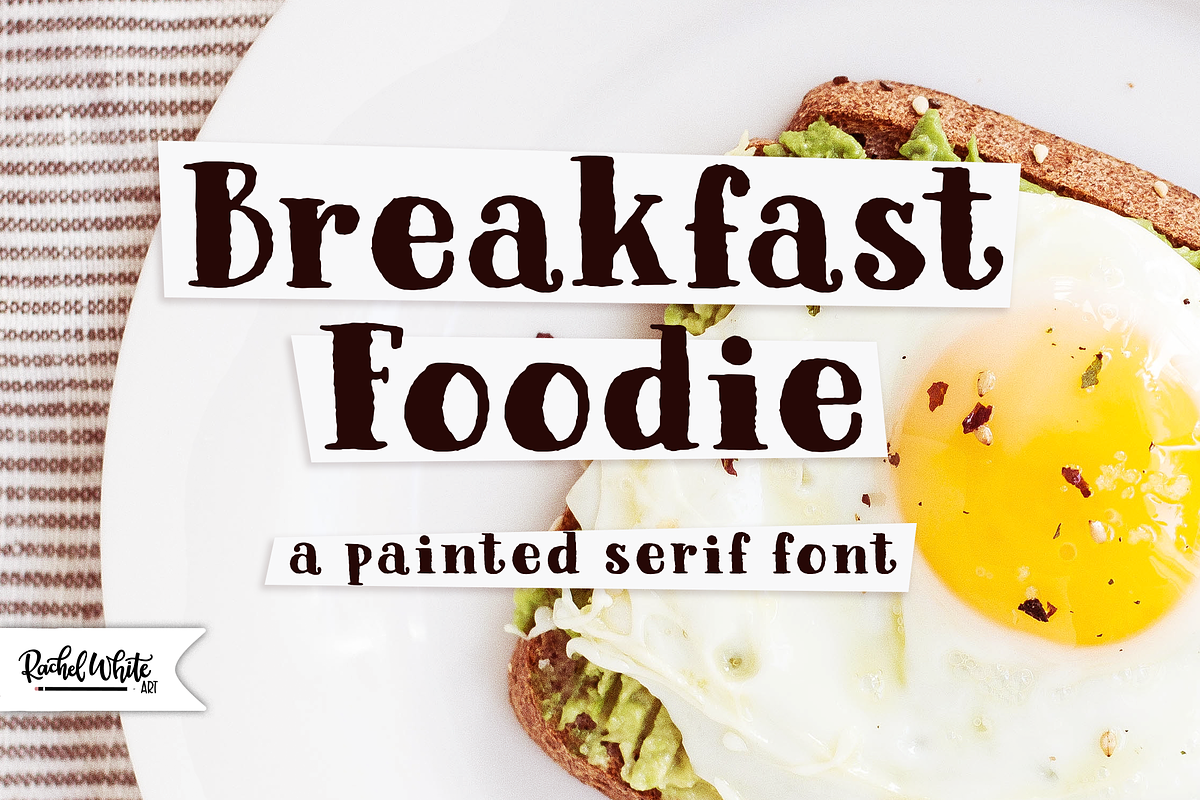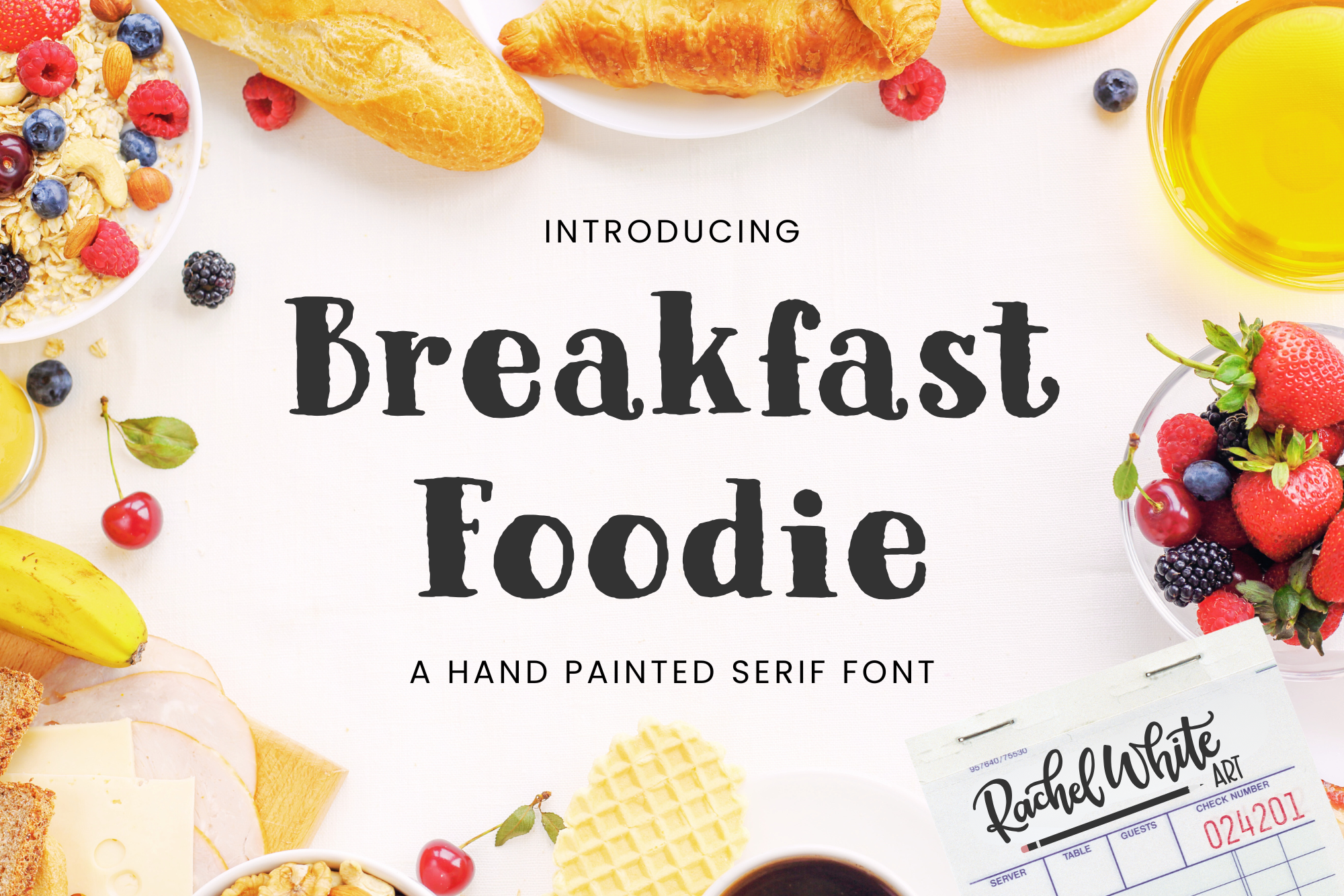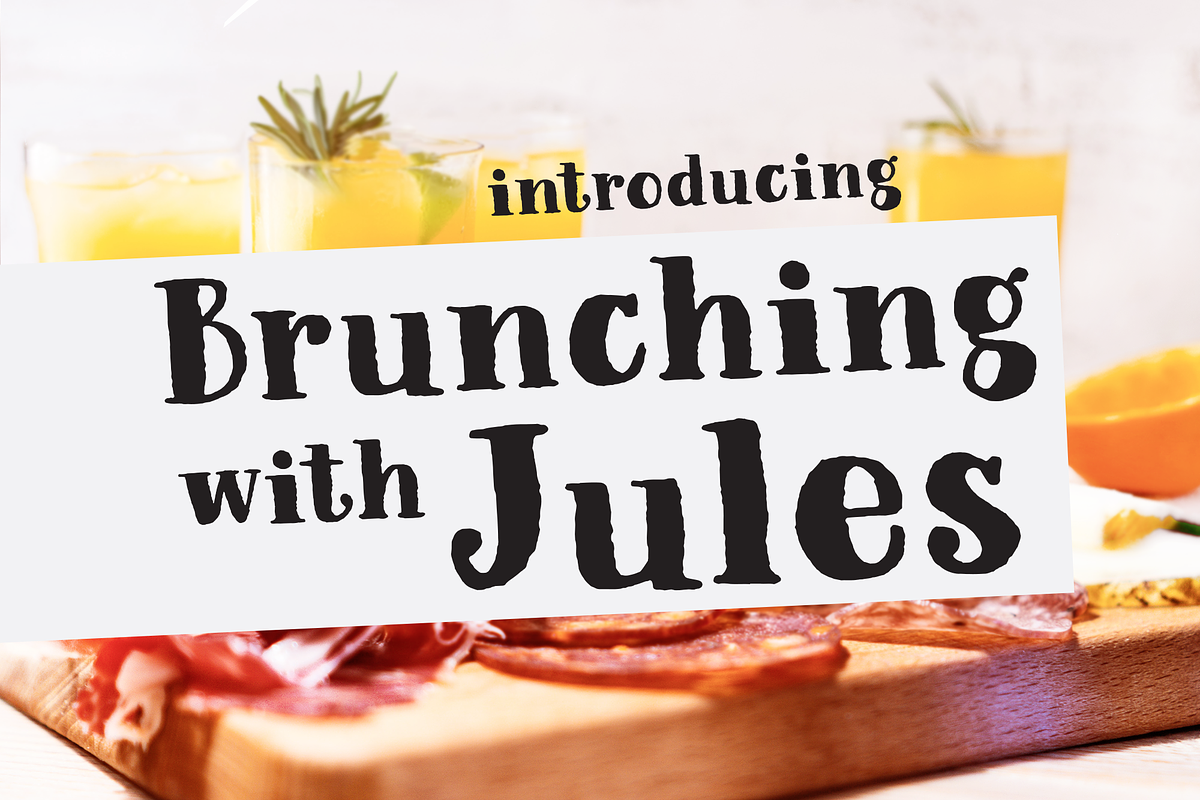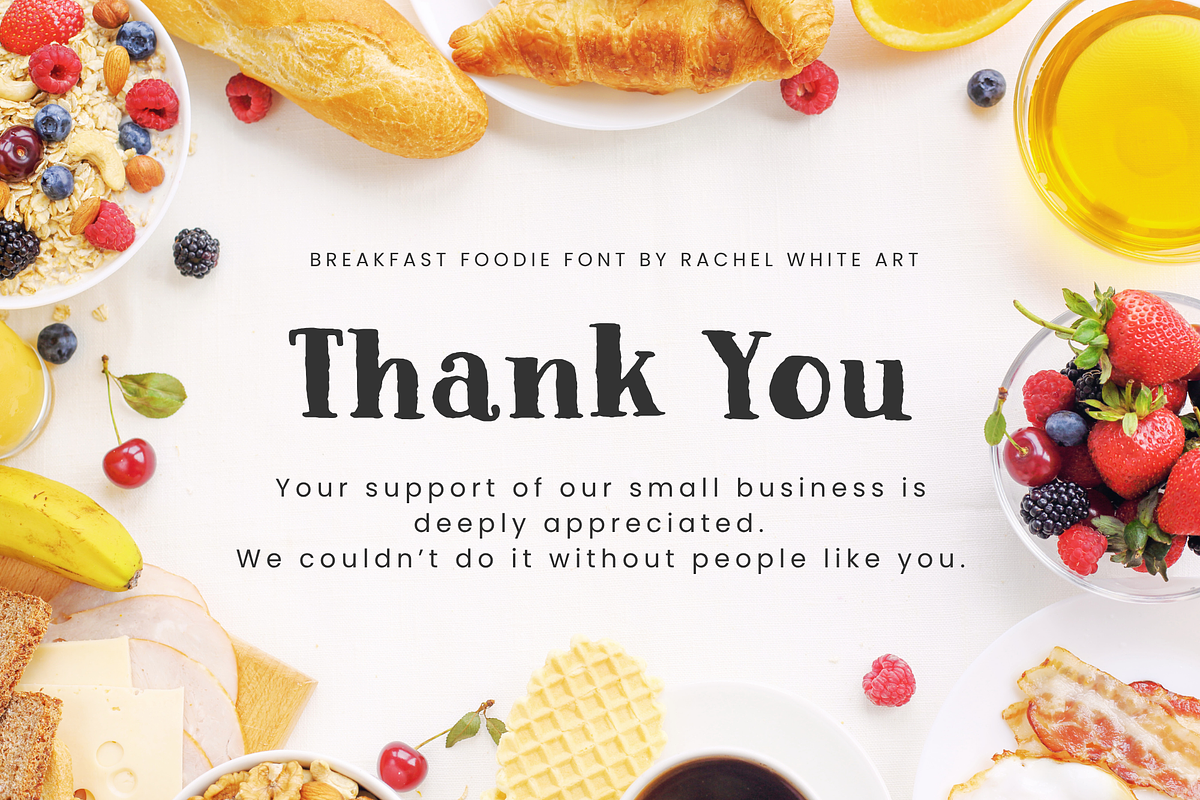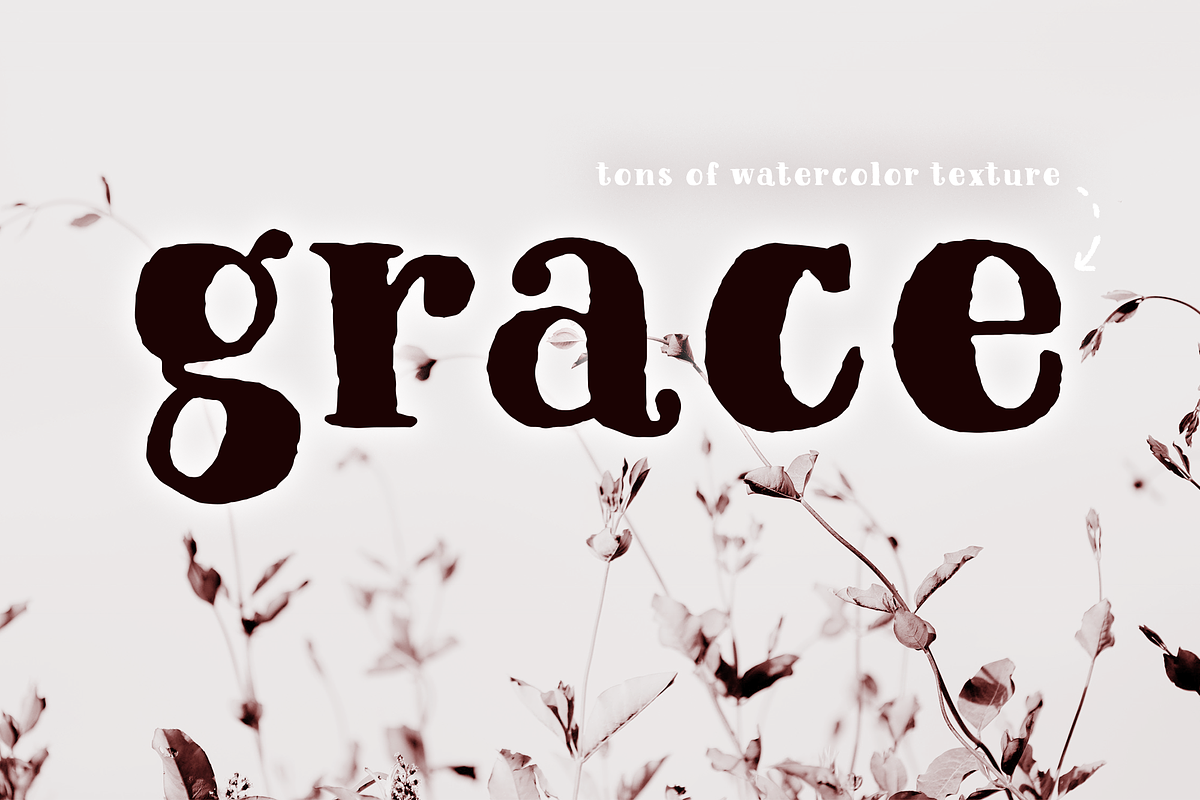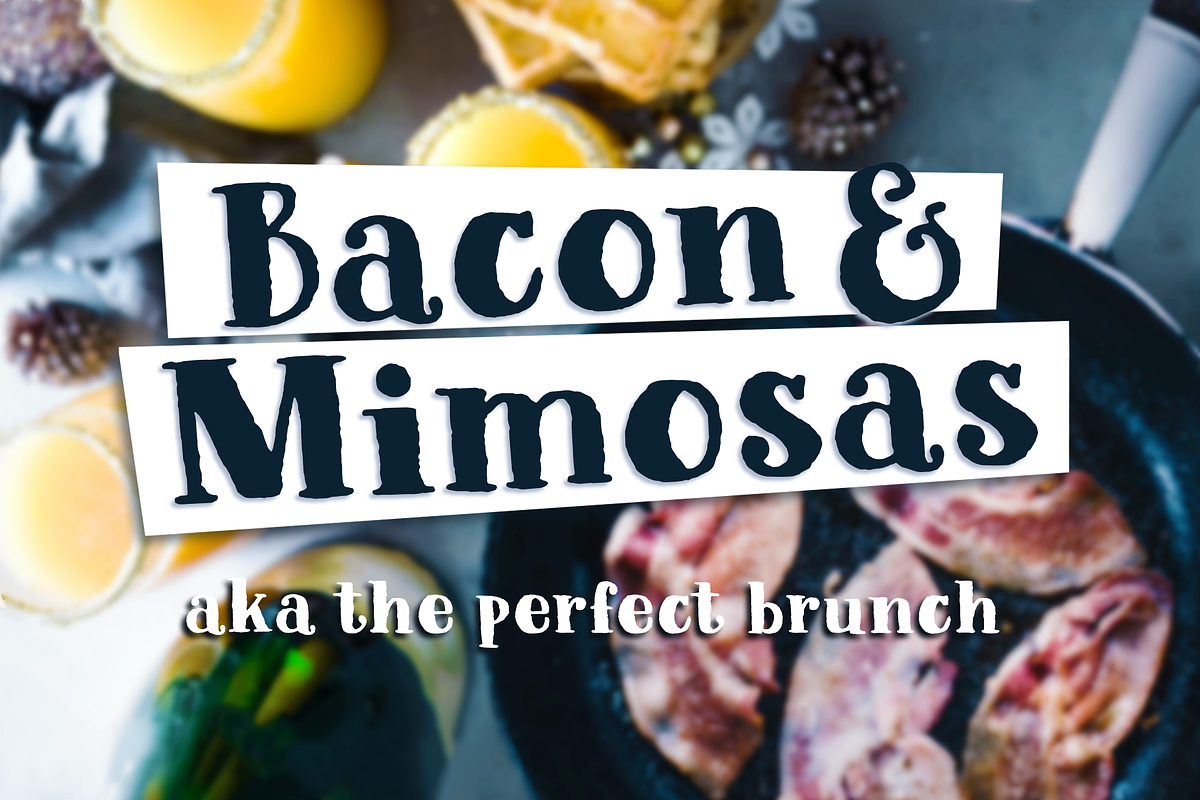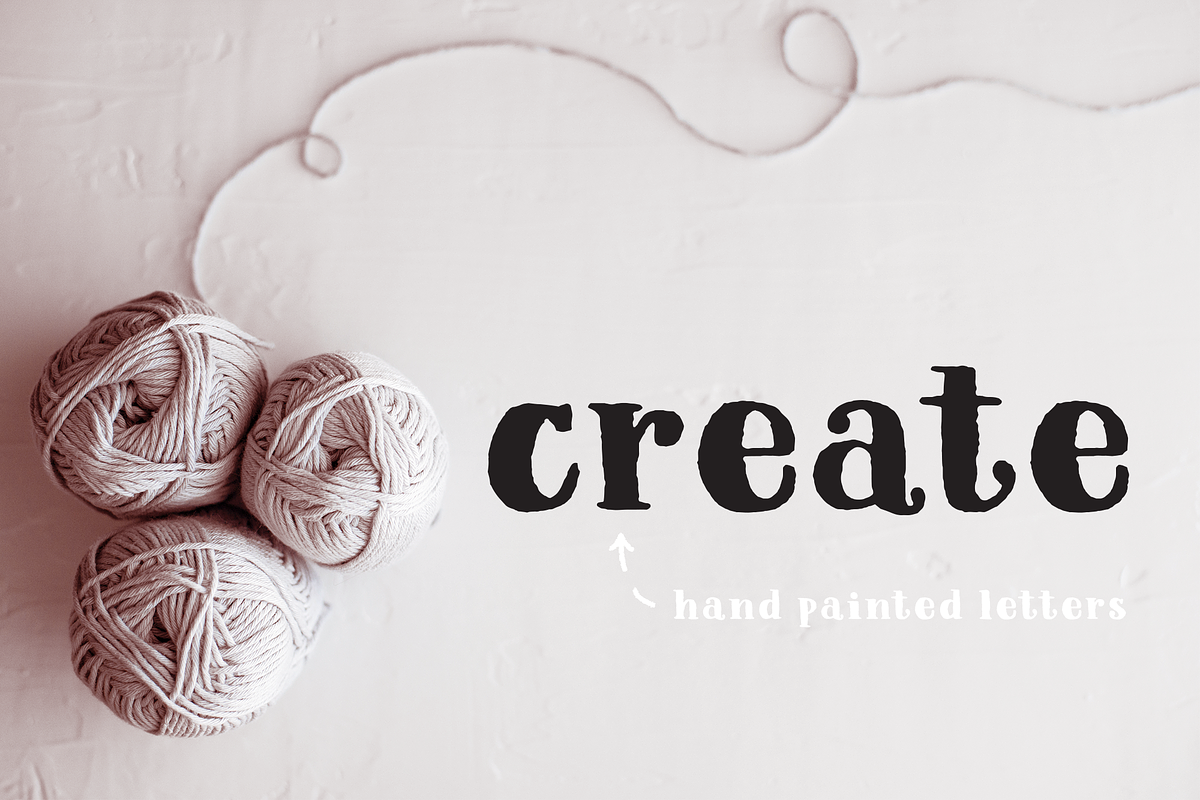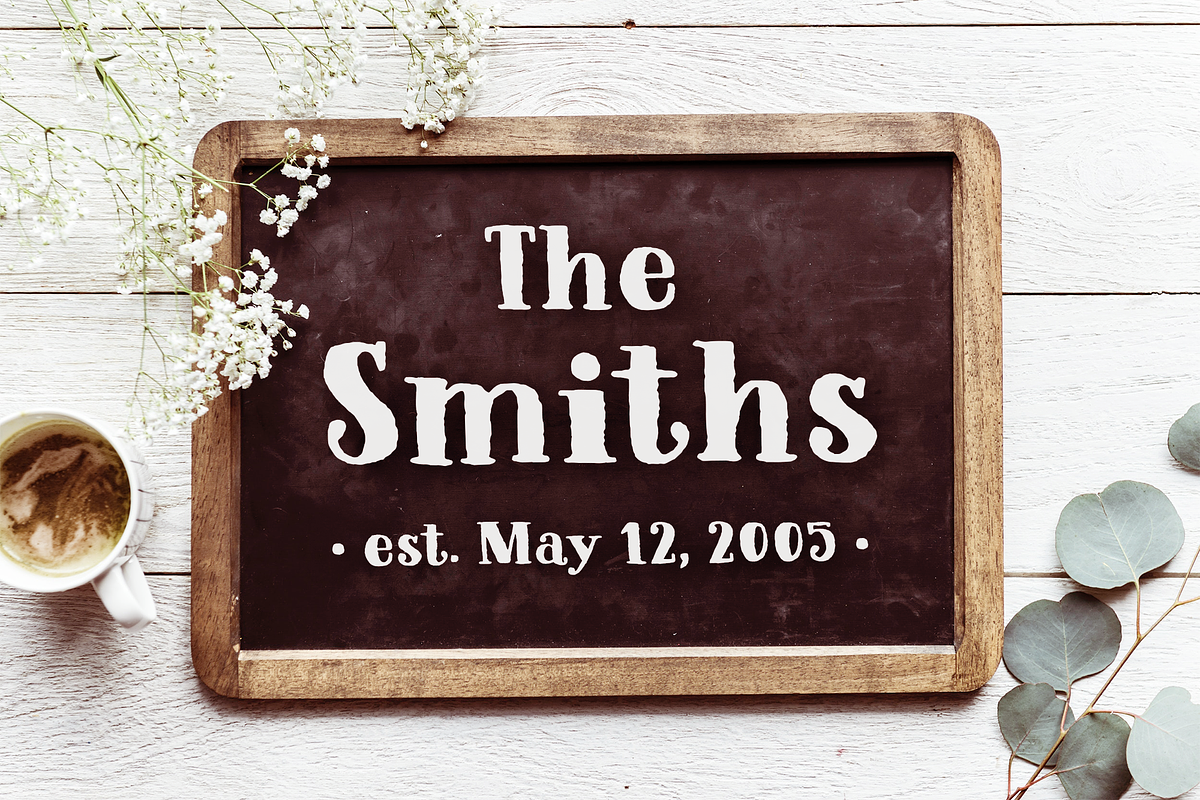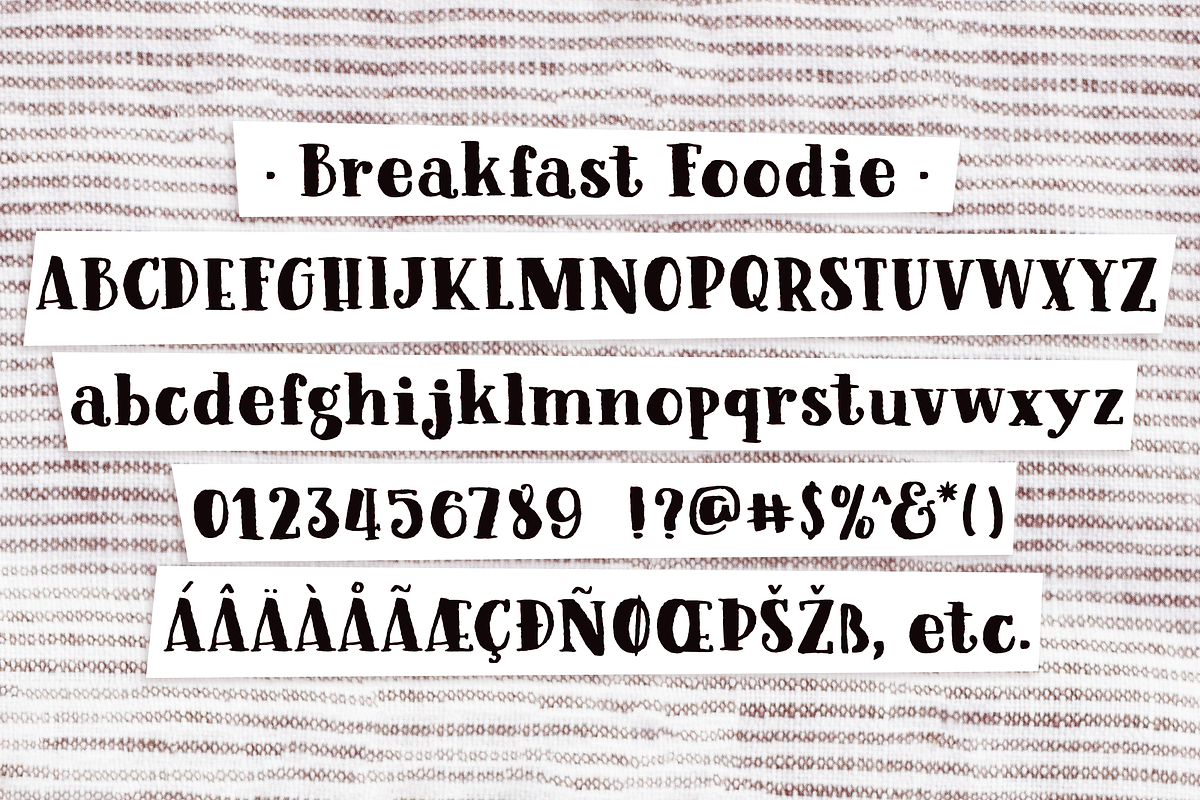
Breakfast Foodie painted serif font
Breakfast Foodie is a hand-painted serif font full of character and warmth. Its textured brush strokes give your designs a handcrafted, artistic vibe, perfect for food packaging, menus, branding, and social media graphics.
This font brings a cozy, inviting feel with its natural imperfections and casual style—ideal for restaurants, cafes, bloggers, and creatives who want to add a touch of personality to their projects.